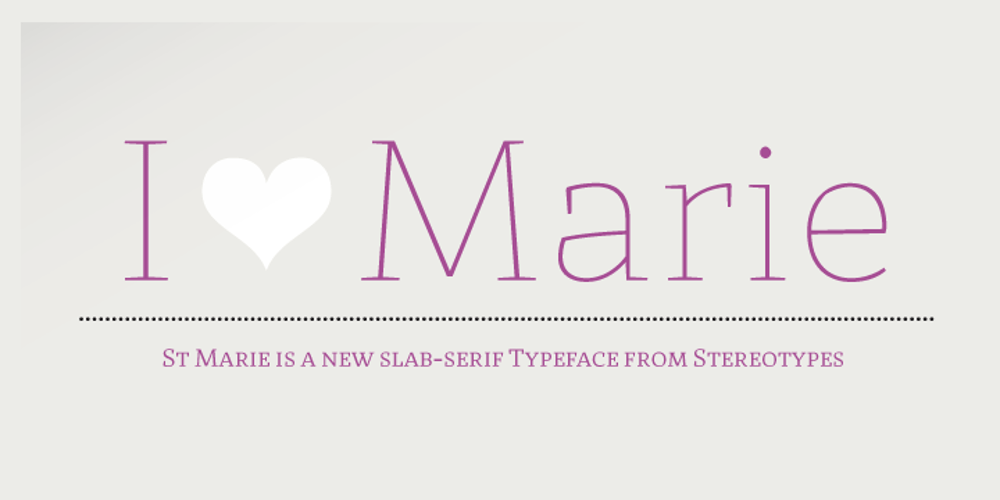
St Marie
St Marie font
St Marie Font Family was designed by Sascha Timplan and published by Stereotypes. St Marie contains 16 styles and family package options. St Marie is an old-style but with a touch of humanistic slab-serif typeface, that loves to be uses in newspapers, books and any other printed medium with a lot of bodycopy. Marie likes to be set in small sizes and gives you all the time the opportunity to read your text with no problems. The strong serifs, especially in the lighter weights give Marie the characteristics to be set also large sizes, for example in headlines and subheadlines. Opentype Features: Small Caps, All small caps, All Caps, Ligatures, Proportional and tabular figures, Old-style and lining figures, Fraction, Superior, Inferior Language support: English, German, French, Italian, Spanish, Dutch, Danish, Swedish, Finnish, Norwegian, Iclandic, Polish, Czech, Ungarian, Estlandish, Turkish, Slovac, Estonian, Latvian, Lithuanian, Albanian, Croatian, Romanian, Slovene